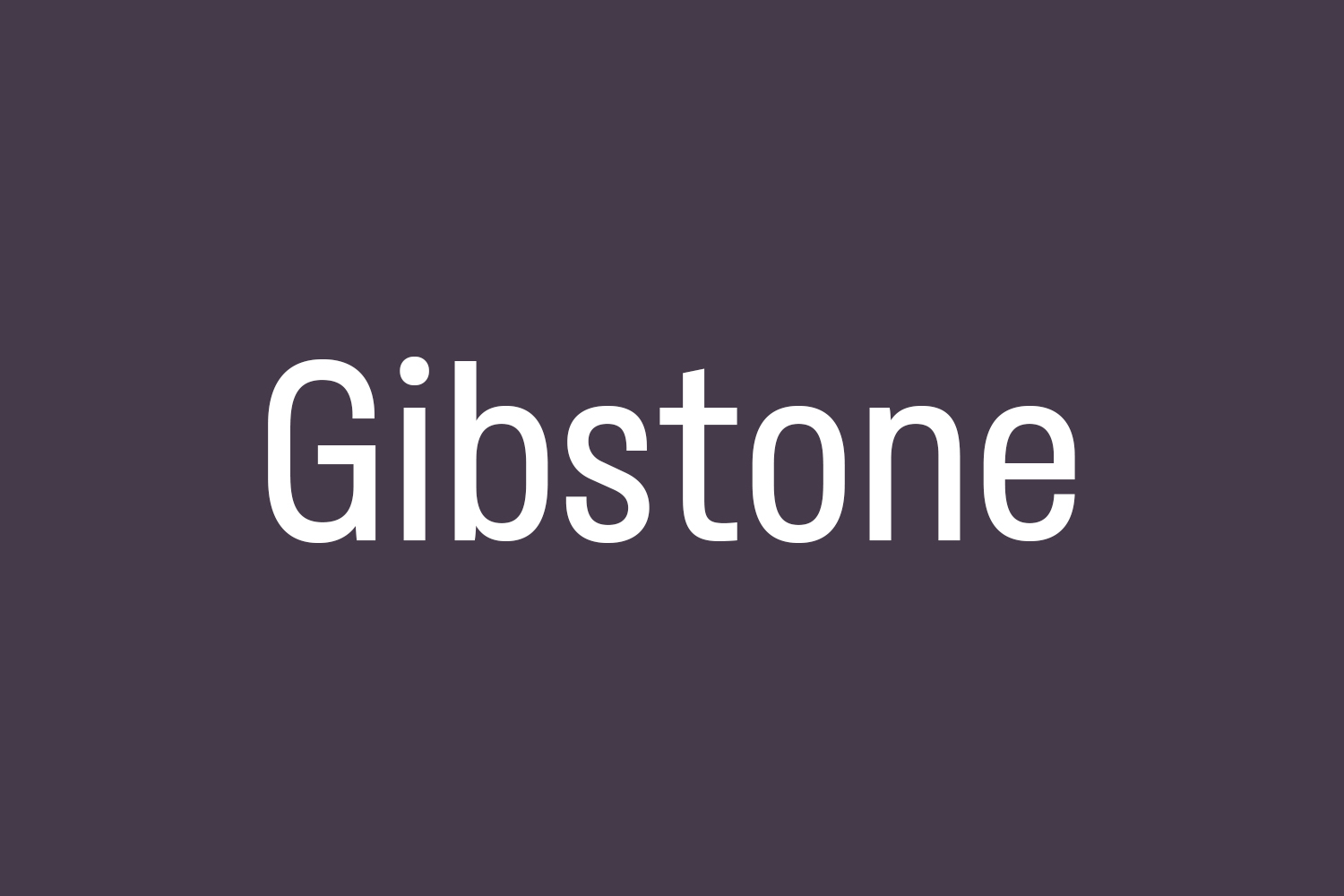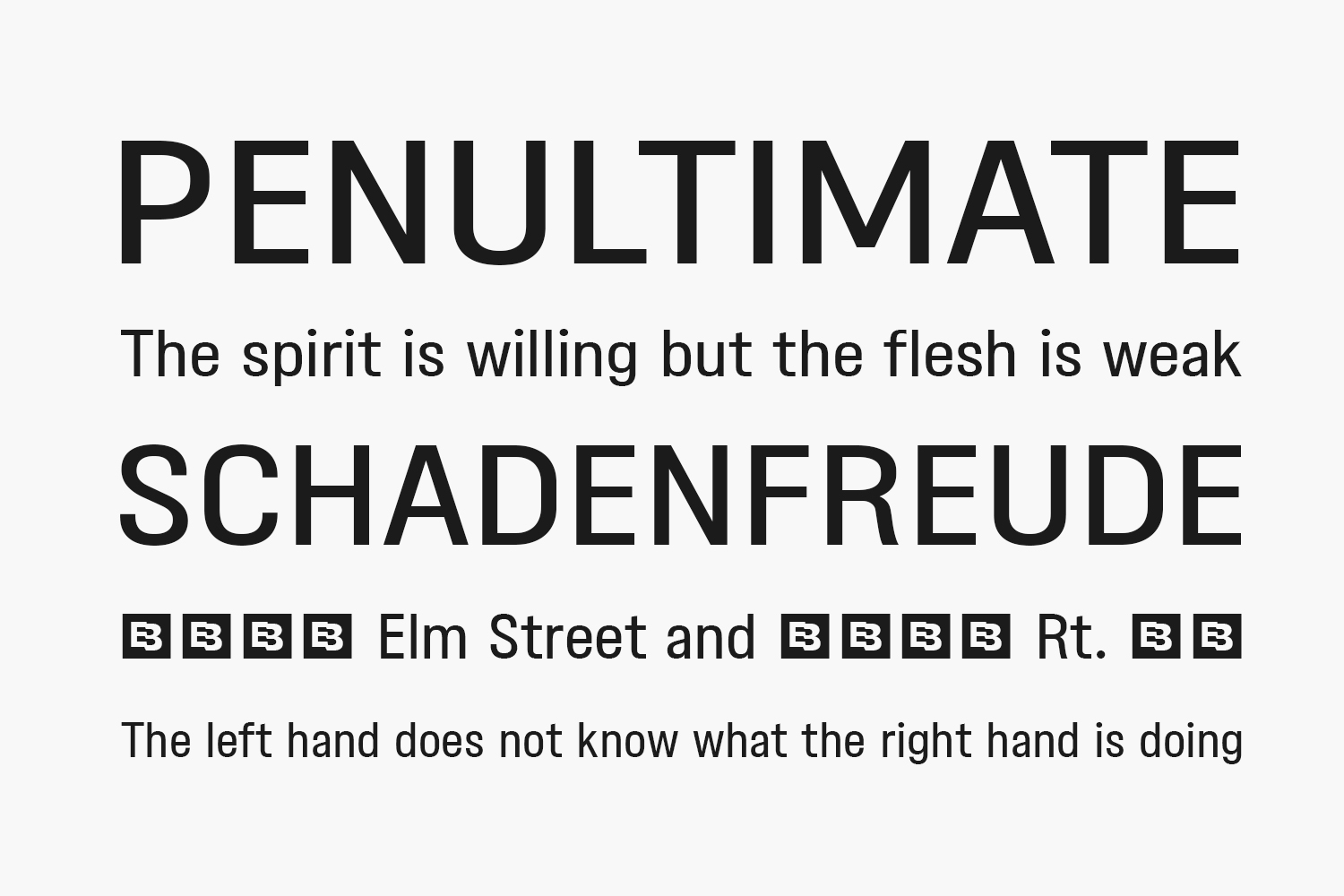
Gibstone Free Font Family – Bold Sans Serif for Strong Typography
Gibstone is a bold and modern sans-serif font family designed by Eko Bimantara to bring clarity, strength, and visual impact to your creative projects. With its clean lines, structured weight, and high legibility, this free typeface works perfectly for crafting powerful logos, magazine headers, digital interfaces, branding materials, and more. Available in TTF format — ideal for designers seeking a strong, minimalist font that enhances readability without sacrificing style.
Why Choose Gibstone?
- Bold Minimalist Style: Combines strength with simplicity for a professional and impactful appearance.
- Ideal for Display Design: Perfect for large text applications like billboards, posters, or animated banners.
Where to Use Gibstone?
Gibstone shines across a variety of design applications:
- Logos & Branding: Adds confidence to brand identities for tech startups, fashion labels, or lifestyle brands needing a modern tone.
- Poster & Billboard Design: Designed for visibility — makes headlines pop in outdoor advertising.
- Digital Interfaces: Ideal for web headers, app typography, or landing page buttons where clear communication is essential.
- Editorial Headers: Stands out in blog titles, magazine covers, and digital banners with a crisp, stylish look.
- Social Media Graphics: Enhances Instagram Stories, TikTok overlays, and YouTube thumbnails with a bold sans-serif presence.
Design Tips with Gibstone
- Glyphs: Basic Latin (A-Z, a-z, 0-9, punctuation), Extended Latin.
Designed by Eko Bimantara